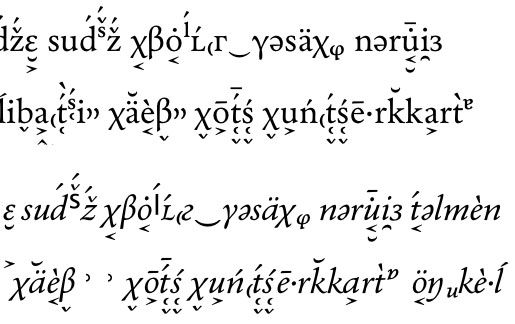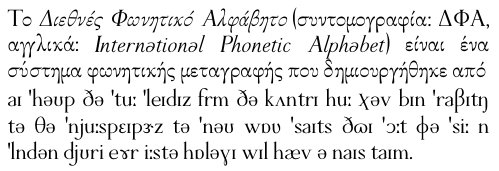
Greek characters on IPA
‘My only complaint is that the small Latin letter upsilon, ʊ, looks too literally like a small upside-down capital omega at the moment[...]Any idea when it will be ready?’
If you're looking at the specimen on the website, its nearly two months out of date—yes, I did change the design of ‘ʊ’. I hope to have the regular done soon, but can't give an exact date as its being done on my own time and dime.
‘your small-cap ƛ. Who did you design this for? Are there any languages that use the symbol in their practical orthographies?’
I designed it for whoever uses the barred lambda. My general principal was/is to provide users with full casing support (uppercase, lowercase, and smallcaps), insofar as possible and practical, despite the fact many languages have not traditionally had that option. It may be the lack of full casing for some characters has become a defacto standard or at least the expectation—ie. official orthographies may not specify casing rules, but this doesn't preclude casing being used for titling, emphasis etc.. I simply want to present users the same typographic sophistication available to other (majority) languages—whether or not anyone will use them, I don't know yet, but at least the option is there.
Peter: John, you are correct to point out the need to distinguish the single- and double-story as in Italic IPA, and that g should always appear in a single-story variant. However, I’m not sure I know any system where your two f glyphs are contrastive...
Yes, that needs a bit more explanation. The descending hook is a generative form in IPA (palatal); so even though the hooked-descender f is not used within IPA, I think descending hooks within that system should not be treated as stylistic elements as in typical italic typefaces.
The hooked-descender f is used extensively in African alphabets (to indicate a voiceless bilabial fricative), and needs to be distinguished in form from the regular f character. In an italic font, this means that the regular f needs a localised form, either non-descending or with a straight descender.
I find the IPA chi by far the most difficult of the special forms to design. I think it needs to retain some chi-ness, probably through retention of the Greek stroke contrast: otherwise it looks too static.
I like Ross' solution for the Huronia IPA.
John: The descending hook is a generative form in IPA (palatal); so even though the hooked-descender f is not used within IPA, I think descending hooks within that system should not be treated as stylistic elements as in typical italic typefaces.
Okay, I see where you might have gotten that idea, but the "featural" elements of the IPA shouldn't be treated as the featural elements of a system like Hangul. Each glyph is individually defined. While there are a few recurring elements that seem to have their own meaning (like the right hooked descender that derives all the retroflex consonants from the alveolars), this shouldn't be extended to the j-tail of the palatals. For one thing, there are palatals that don't have it (c, ç and ʎ), but more importantly, the idea of /f/ with palatal coarticulation is nonsensical. An /f/ with a palatal secondary articulation would be transcribed as /fʲ/. No one could ever see the italic f and confuse it for anything (except maybe ʃ or ʄ, but there will always be similar-looking characters in a system as finicky as the IPA). Anyway, italic f in IPA should definitely have the same form as the corresponding text font.
Ewe is another story, and I thank you for pointing it out to me. Sounds like a good job for that Sabon-style italic f.
I think it needs to retain some chi-ness, probably through retention of the Greek stroke contrast: otherwise it looks too static.
Obviously you have precedent on your side with that position; but if nothing else in the system has Greek stress, I just think the chi ends up looking terribly lost.
Here are my greek and IPA letters and also a sample text with them. Not 100% finished but getting there. Although I admit I just did it today, the chi actually looks pretty good when I've set a word or two and also in a larger body of transcription. It also makes for some nice diacritic positioning.
See my last posting for that.
Allow me one last remark adressed to all Do-it-yourself-fontists: D O N ’T do it – unless you’re a trained type designer. The samples shown above of all these free fonts may illustrate what I mean.
Allow me one last remark adressed to all Do-it-yourself-fontists: D O N ’T do it – unless you’re a trained type designer.
One might as well say to all the do-it-yourself type designers: D O N ' T do it -- unless you are a trained compositor with strong editorial skills.